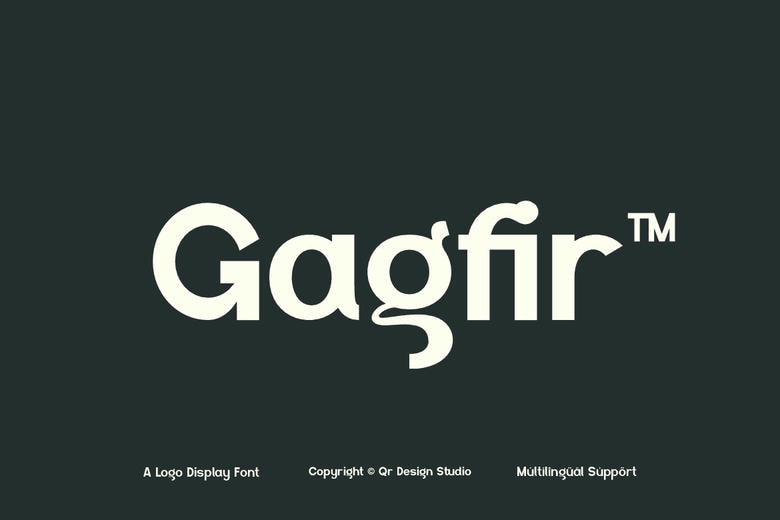
Gagfir Font
Gagfir Font is a bold and genuine display typeface. It is ideal in different branding projects like logos, sports designs among others. This font is exquisite in a broad spectrum of contexts.
Gagfir Sans Serif Font